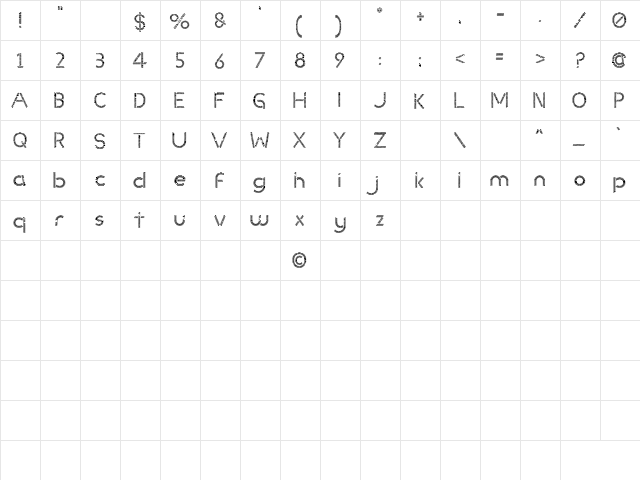
Slinked Regular
Design Context for Slinked Typeface
Slinked takes a measured approach to typography — its balanced proportions and neutral character make it a reliable workhorse for both digital and print work.